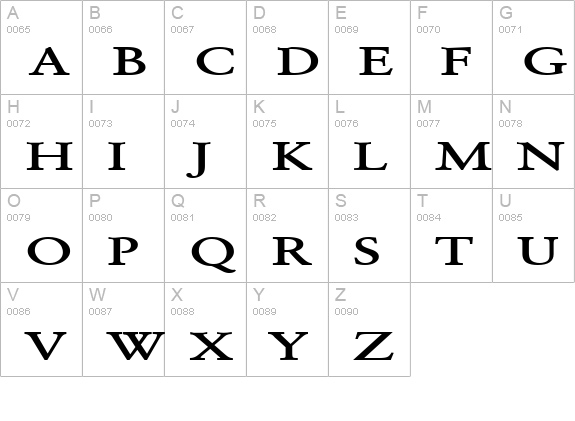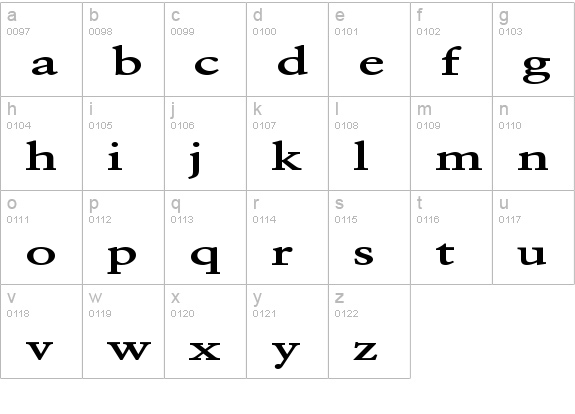
Garrick Extended Bold is a strong, high-contrast, extended-width variant in the Garrick typeface family \xE2\x80\x94 well suited to headlines, attention-grabbing titles, and strong calls-to-action.
Garrick Extended Bold is a modern and versatile typeface that exudes strength and elegance. Its bold design makes a statement while remaining highly readable, making it perfect for headlines, titles, and branding projects. The extended character set ensures support for various languages and design needs. This font is freely available to download at FontsMarket.com, allowing designers and creatives to access this high-quality typeface for their projects without any cost. Whether used for print or digital designs, Garrick Extended Bold will make a bold and impactful statement.